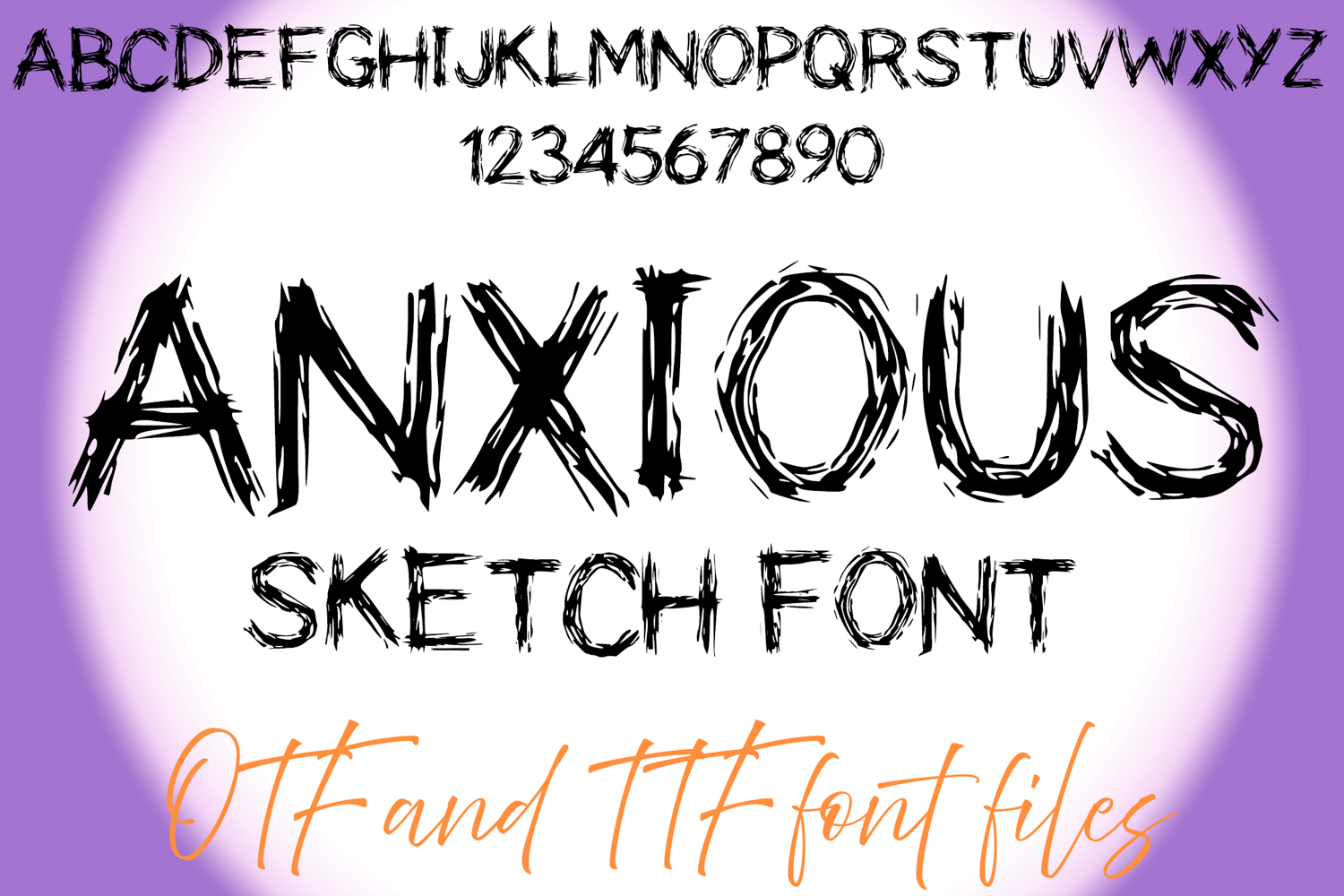
Anxious Sketch Alphabet Lettering ABC Scribble Text Font OTF
A cartoon style font where you can create your own words and colour them to your vision!